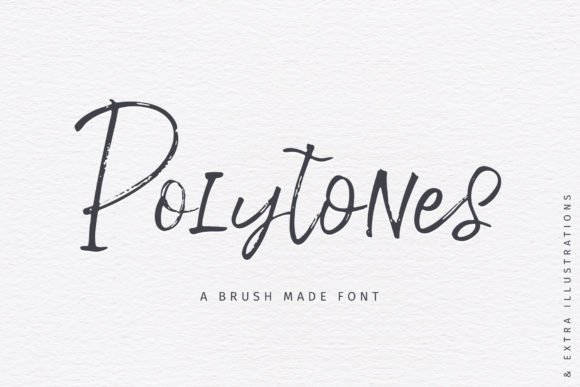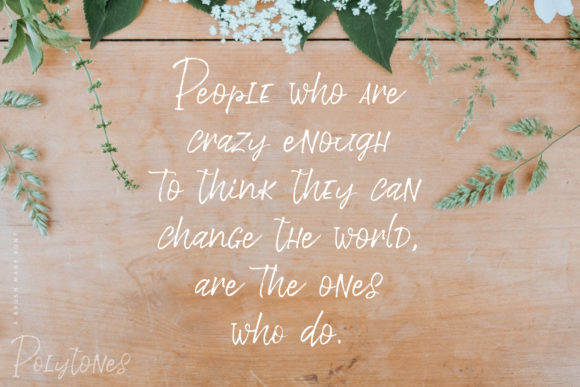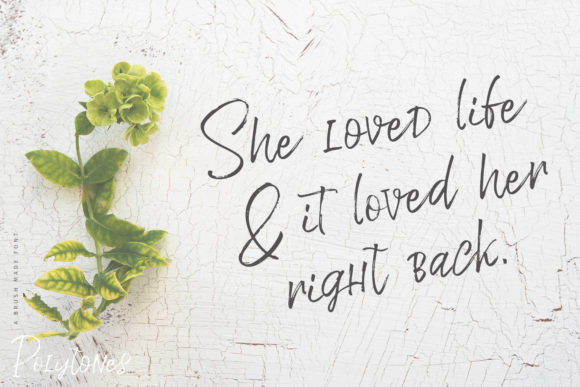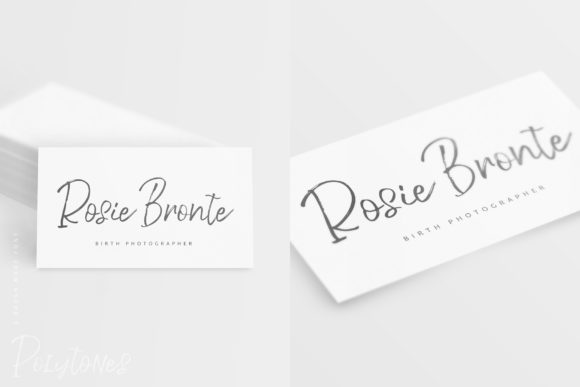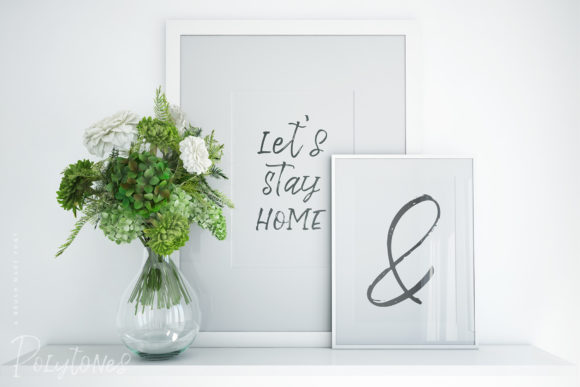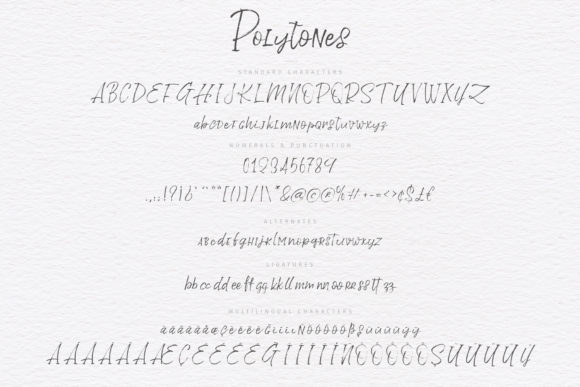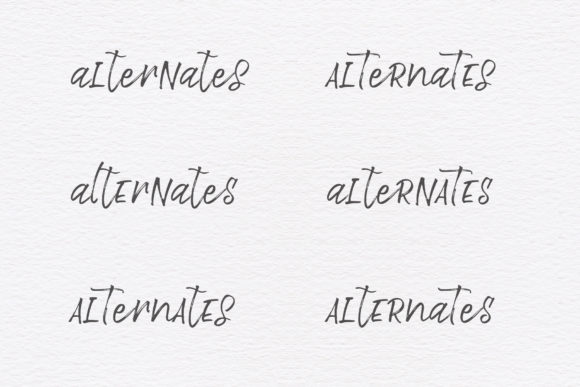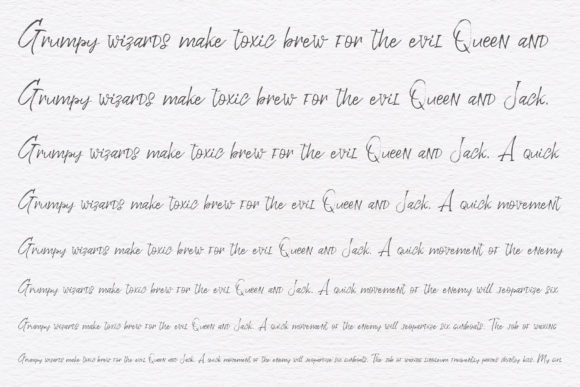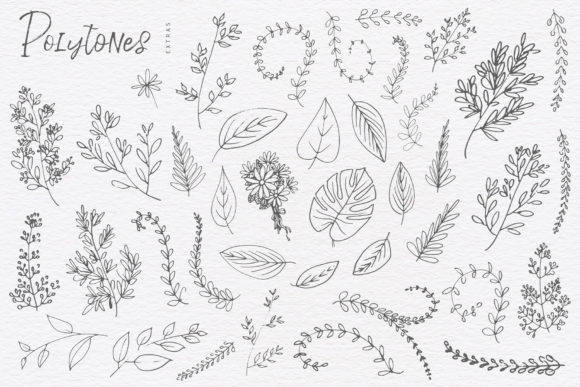
Polytones Font
About Polytones Font
Polytones is a distinct and timeless handwritten font, created with the help of an outstanding brush pen. Fall in love with its incredibly elegant and delicate feel and use it to create spectacular designs!